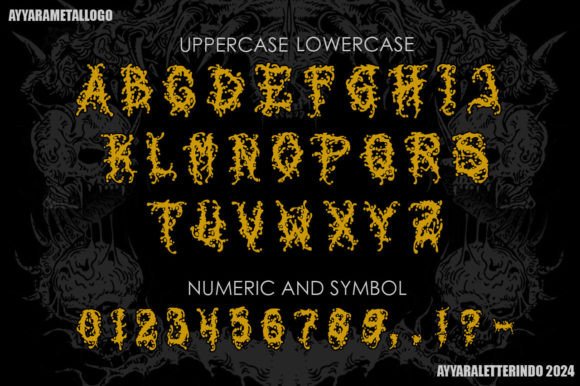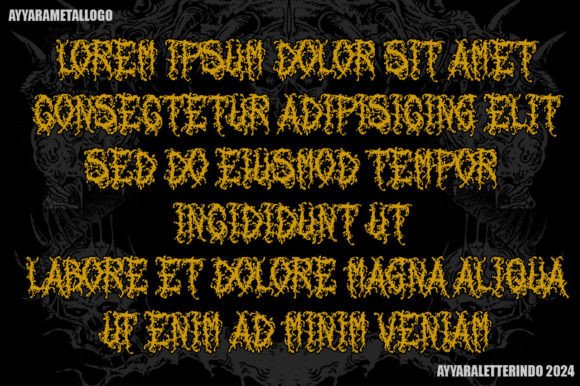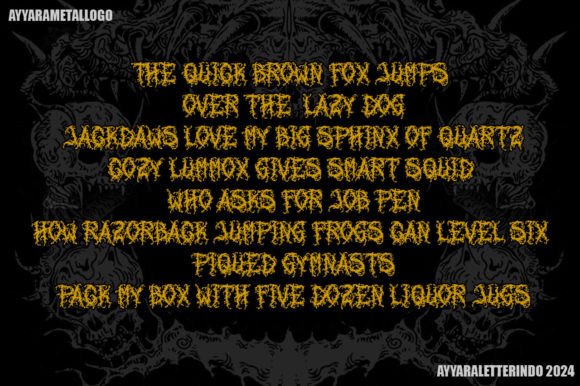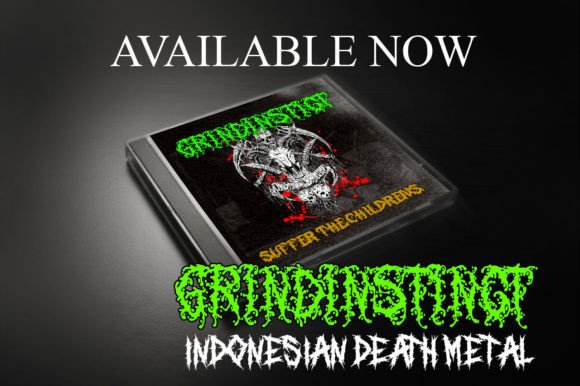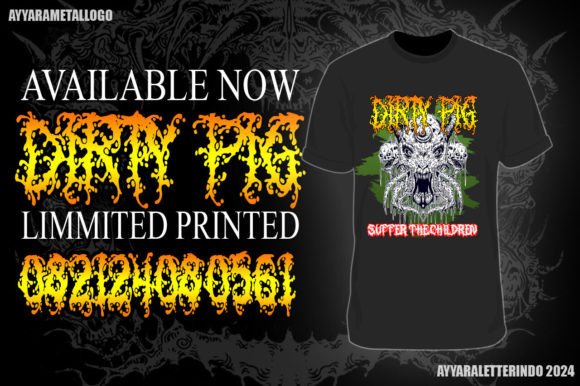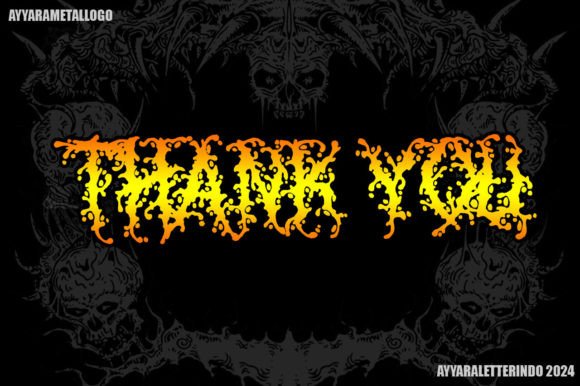
Introduction to Dark Liquide Font
Dark Liquide is a display typeface font that can be used for logos, branding, posters, flyers, or any media promotions and your metal band name.
You can immediately make your band or brand logo name with the help of this unique font Combine it with any unique ornaments and make your cool design with easy.